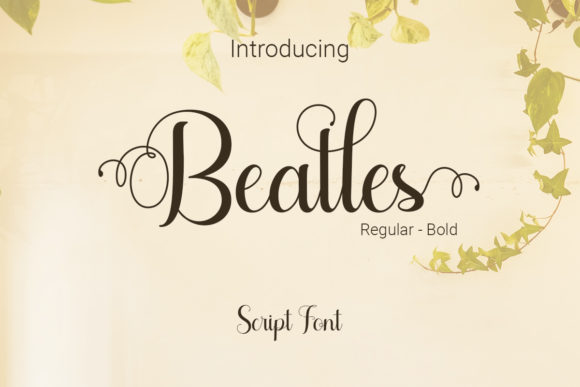
Beatles Font Download Script Fonts: Typography isn’t just about letters — it’s about expression. And if you’re looking for a font that blends natural handwriting with sophisticated elegance, Beatles Font might just be your new favorite. Whether you’re creating a romantic wedding invitation or designing a feminine brand identity, this stylish script typeface brings your message to life with grace and charm.
What is the Beatles Font?
The Beatles Font is a modern, handwritten script font designed to replicate natural, flowing handwriting with a hint of romance and sophistication. Despite its name, it’s not related to The Beatles band or their iconic logo, which uses a bold serif typeface (similar to “Bootle” or “Bootle BE”). Instead, the Beatles Font we’re talking about here is known for its elegant, cursive strokes and hand-lettered feel.
It’s especially popular in projects that call for authenticity, warmth, and creativity. From personal stationery to luxury brand assets, this font does more than decorate your text — it gives it character.
Key Features of Beatles Font
So what makes the Beatles Font stand out among thousands of other script fonts? Let’s take a closer look:
✨ Authentic Handwriting Style
The font mimics real penmanship, complete with variable stroke width and smooth curves. It’s natural yet polished — the perfect balance for modern designs.
💼 Professional yet Playful
It’s artistic without being over-the-top. Suitable for logos, product packaging, branding, and more.
❤️ Versatile in Tone
Though romantic in nature, the Beatles Font is flexible enough to work across themes — from minimalist to vintage, feminine to classic.
Popular Uses for Beatles Font
Because of its personal and elegant style, Beatles Font is ideal for projects that demand a personal touch. Here are just a few ways designers and creatives are using this font:
Wedding Invitations & Stationery: The graceful script adds elegance to invitations, RSVP cards, save-the-dates, and menu designs.
Logos & Branding: Great for boutique brands, florists, photographers, and creatives who want to appear friendly yet refined.
Social Media Graphics: Instagram quotes, Pinterest pins, and YouTube thumbnails get a soft and stylish boost with this font.
Greeting Cards & Quotes: Whether you’re designing a thank-you card or an inspirational wall print, Beatles Font creates warmth.
Business Cards: Make a lasting first impression with handwritten flair.
Product Packaging: Ideal for candles, soaps, cosmetics, and artisanal goods looking for a handmade appeal.
Final Thoughts: Bring Your Designs to Life with Beatles Font
If your creative project calls for elegance, warmth, and a handwritten charm, the Beatles Font delivers. Whether you’re working on a wedding suite, a heartfelt greeting card, or a brand identity that needs a personal edge, this font is versatile, classy, and delightfully romantic.
With PUA encoding and beautiful glyphs at your fingertips, you’re not just typing — you’re crafting art.